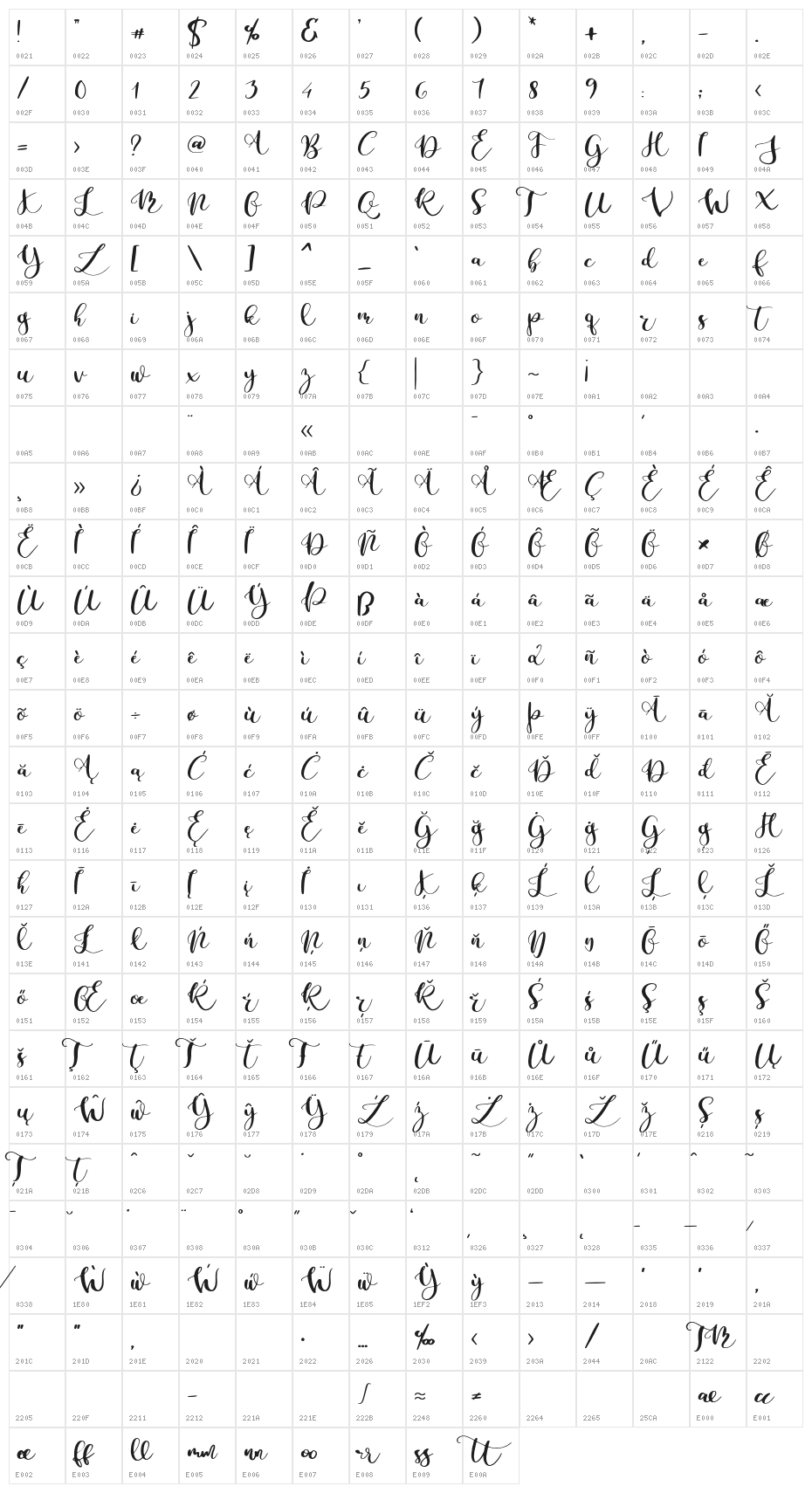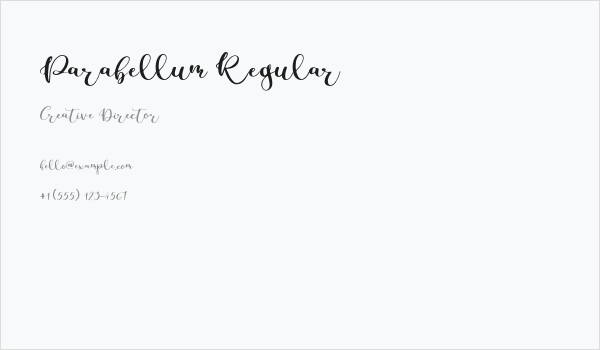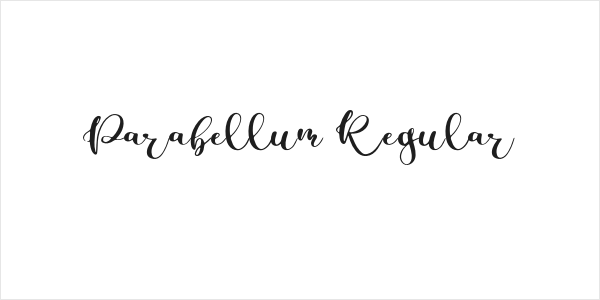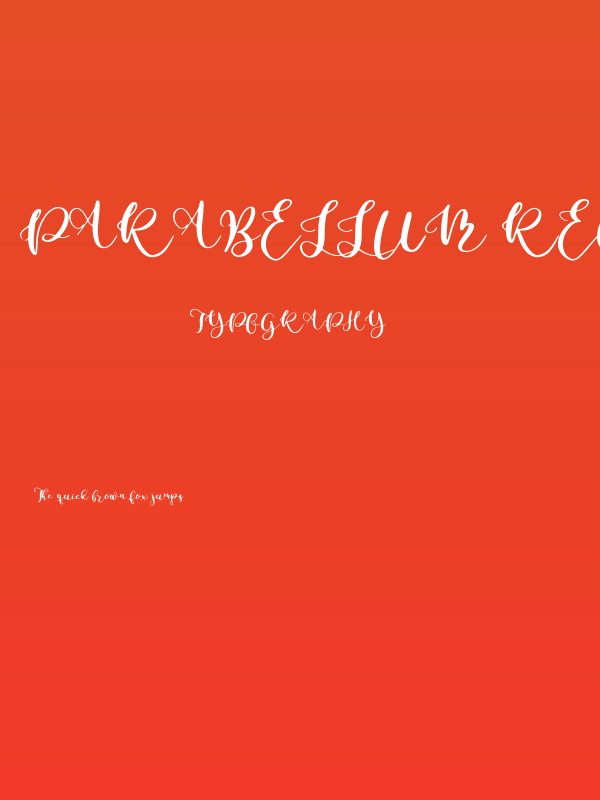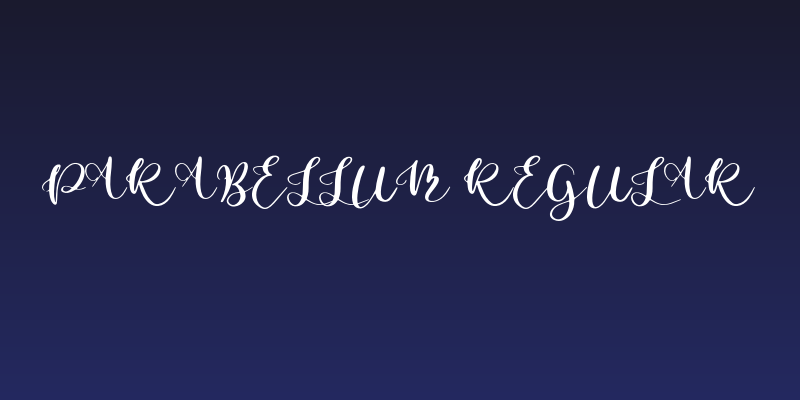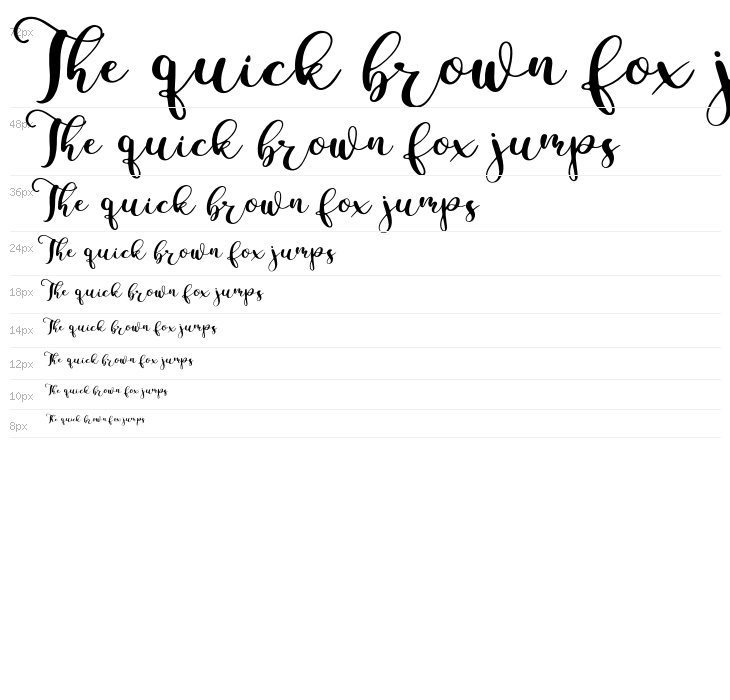
Parabellum Regular Font
Parabellum Regular Description
This font features a flowing, cursive style with elegant loops and swashes, giving it a sophisticated and artistic appearance. The uppercase letters are ornate, with flourishes that extend beyond the baseline, while the lowercase letters maintain a consistent, fluid connection. The numerals are bold and slightly slanted, complementing the overall script style. Special characters are designed with similar flair, enhancing the decorative nature of the font. The strokes vary in thickness, providing a dynamic contrast that adds to the visual interest. This font is ideal for projects that require a touch of elegance and creativity.
| Proposed Projects | Wedding invitations, greeting cards, branding, and logo design. |